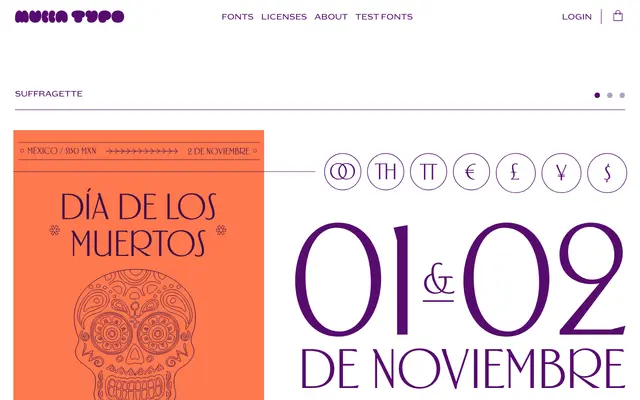
Suffragette
An all-caps display face with medium contrast and restrained serifs, created for the Hermitage Hotel in Nashville and pitched at luxury packaging and couture branding.
Drawn originally for the Hermitage Hotel's Beaux-Arts identity, Suffragette blends classical roman capital proportions with a contemporary edge. The letterforms feature sans-serif-influenced medium contrast and subtly flared serifs, sitting somewhere between inscriptional and refined display. OpenType features include discretionary ligatures, an alternate R, multiple ampersand variants and case-sensitive forms, giving it more flexibility than a single-weight, single-style family might suggest.
An all-caps roman capital design with medium contrast and slightly pronounced serifs, positioned as a display face for luxury branding rather than continuous text setting.